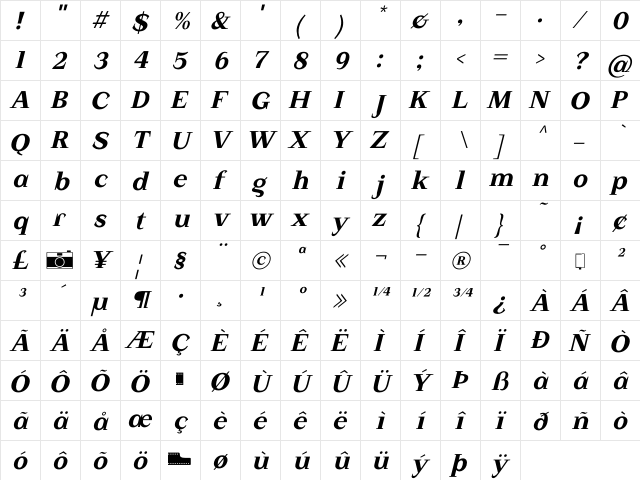
Miscasted Italic
| Foundry | Ryoichi Tsunekawa |
| Designer | Ryoichi Tsunekawa |
Design Context for Miscasted Typeface
Miscasted is a composed and adaptable typeface that performs quietly and consistently across a wide range of design contexts. The slanted form adds forward momentum and visual energy.
Pro Tip: Try Miscasted for annotation and caption copy alongside an upright companion — the contrast in angle creates a dynamic but ordered typographic system.